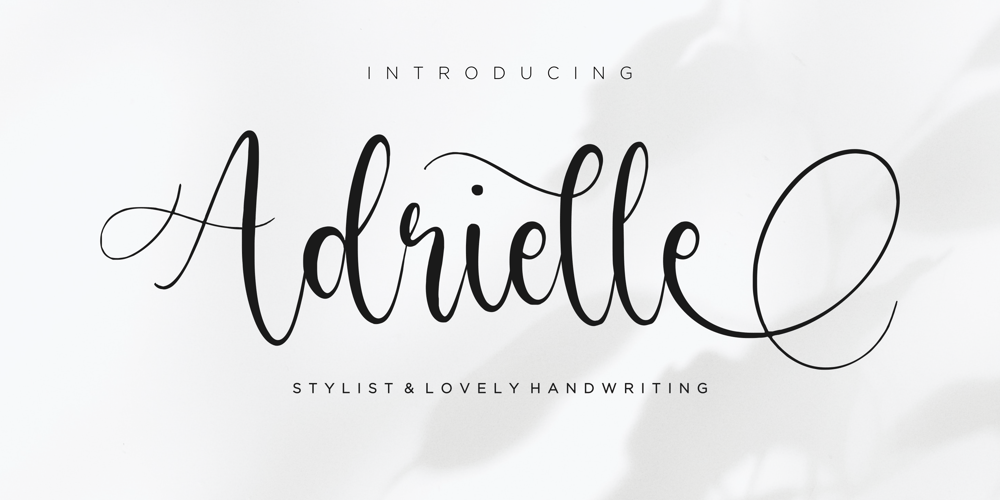
Adrielle Font Family was designed by Restu Angga and published by Balpirick. Adrielle contains 1 styles and family package options. Adrielle is a Stylist & Lovely Handwritting Font.Adrielle is perfect for product packaging, branding project, megazine, social media, wedding, or just used to express words above the background.Adrielle also multilingual support.Uppercase & Lowercase font Stylistic Alternates Ligatures Symbols & Punctuation OpenType Features.Enjoy the font, feel free to comment or feedback, send me PM or email.Thank you!